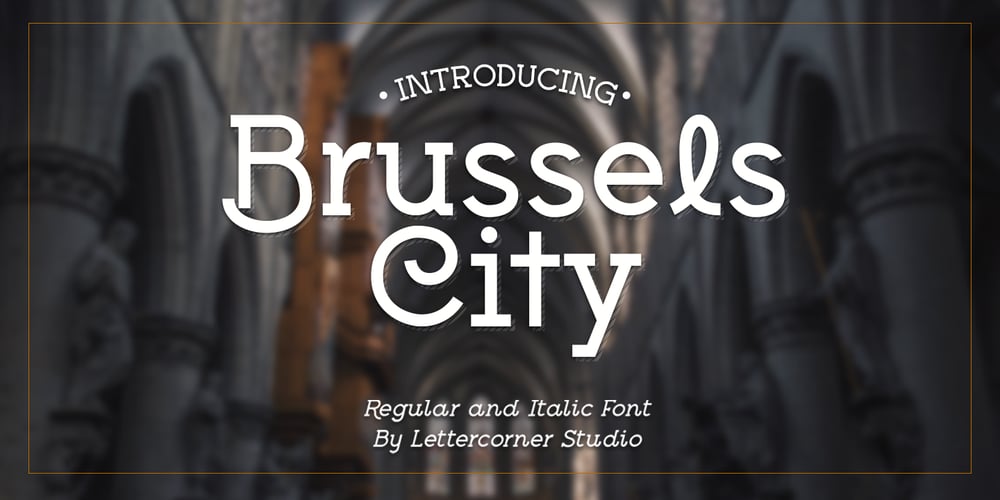
Brussels City Font Family was designed by Muhammad Afif Ersya and published by Mevstory Studio. Brussels City contains 2 styles and family package options. Brussels City is Modern Slab Serif Font Brussels City font is perfect for your up coming projects. Such as logo branding, editorial design, stationery design, sport design, blog design, modern advertising design, card invitation, art quote, home decor, book/cover title, special events and any more.That’s it! Have fun with Brussels City Serif Font. Thank you!Lettercorner Std